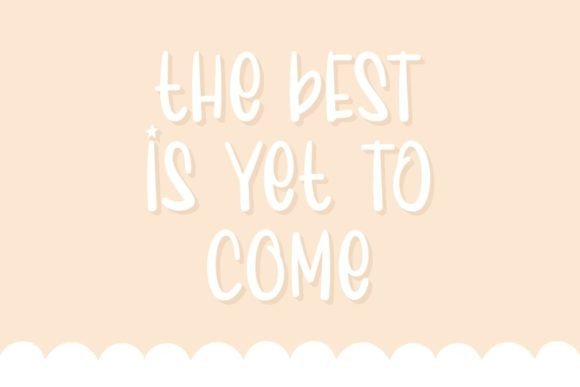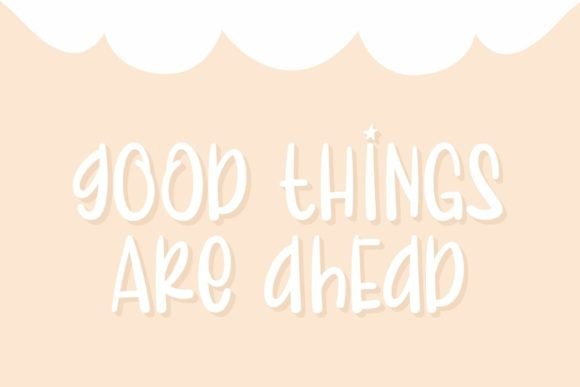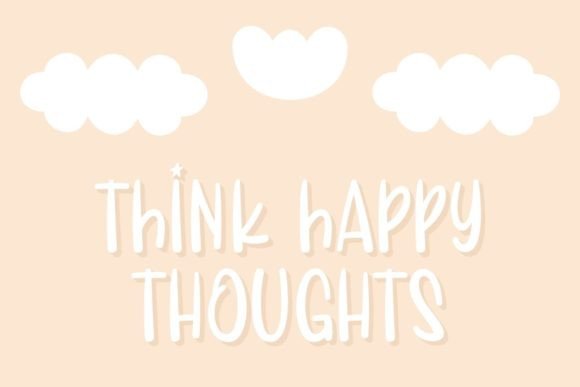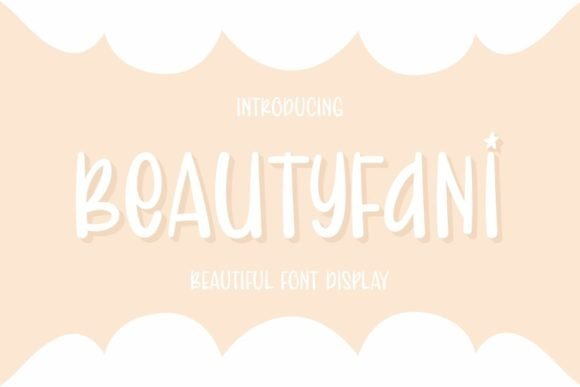
Introducing Beautyfani Font: The Playful Display Font You Need
Are you tired of using the same old fonts in your designs? Do you want to add a touch of playfulness and whimsy to your creative projects? Look no further than Beautyfani Font, a masterfully designed display font that is sure to become a true favorite in your collection.
What is Beautyfani Font?
Beautyfani Font is a display font that feels playfully handmade, delivering an incredibly playful and eye-catching aesthetic to any design idea you can think of. With its unique and quirky style, this font is perfect for designers and crafters who want to add a special touch to their projects.
Key Features of Beautyfani Font
- Playful and Whimsical: Beautyfani Font has a playful and whimsical feel that is sure to capture the attention of your audience.
- Handmade Aesthetic: This font has a handmade aesthetic that gives it a unique and personal touch.
- Display Font: Beautyfani Font is a display font, making it perfect for headlines, titles, and other display text.
- Highly Versatile: This font can be used in a variety of design projects, from branding and advertising to packaging and scrapbooking.
Why Use Beautyfani Font?
There are many reasons why you should consider using Beautyfani Font in your designs. Here are just a few:
- Adds a Playful Touch: Beautyfani Font adds a playful and whimsical touch to any design project, making it perfect for brands and designers who want to stand out from the crowd.
- Enhances Creativity: This font is designed to inspire creativity and bring your ideas to life.
- Easy to Read: Despite its playful aesthetic, Beautyfani Font is easy to read, making it perfect for use in a variety of design projects.
- Unique and Exclusive: Beautyfani Font is a unique and exclusive font that will set your designs apart from the rest.
How to Use Beautyfani Font
Beautyfani Font is easy to use and can be incorporated into a variety of design projects. Here are a few ideas to get you started:
- Branding and Advertising: Use Beautyfani Font to create eye-catching headlines and titles for your branding and advertising campaigns.
- Packaging Design: Add a playful touch to your packaging design with Beautyfani Font.
- Scrapbooking: Use Beautyfani Font to add a personal and whimsical touch to your scrapbooking projects.
- Social Media Graphics: Create eye-catching social media graphics with Beautyfani Font.
Tips and Tricks for Using Beautyfani Font
Here are a few tips and tricks for using Beautyfani Font:
- Use it Sparingly: Beautyfani Font is a display font, so use it sparingly to add emphasis and impact to your designs.
- Pair it with Other Fonts: Pair Beautyfani Font with other fonts to create a unique and visually appealing combination.
Beautyfani Font is a playful and whimsical display font that is sure to become a true favorite in your collection. With its unique and handmade aesthetic, this font is perfect for designers and crafters who want to add a special touch to their projects. Whether you’re working on a branding campaign, packaging design, or scrapbooking project, Beautyfani Font is the perfect choice. So why wait? Download Beautyfani Font today and start adding a playful touch to your designs!